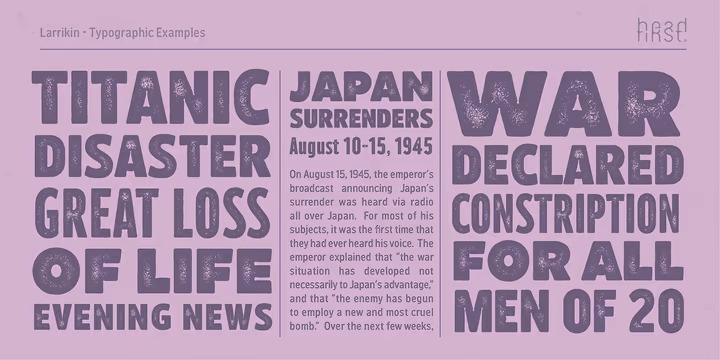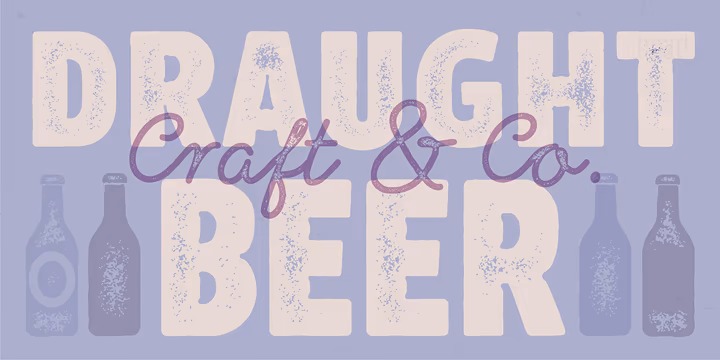
Larrikin Display Font
It’s a strong and bold sans serif and script with a touch of vintage look and feel. The typeface is available in 6 weight with both Rough & Solid variations. This type of font perfectly made to be applied especially in logo, headline, signage and the other various formal forms such as invitations, labels, logos, magazines, books, greeting / wedding cards, packaging, fashion, make up, stationery, novels, labels or any type of advertising purpose.